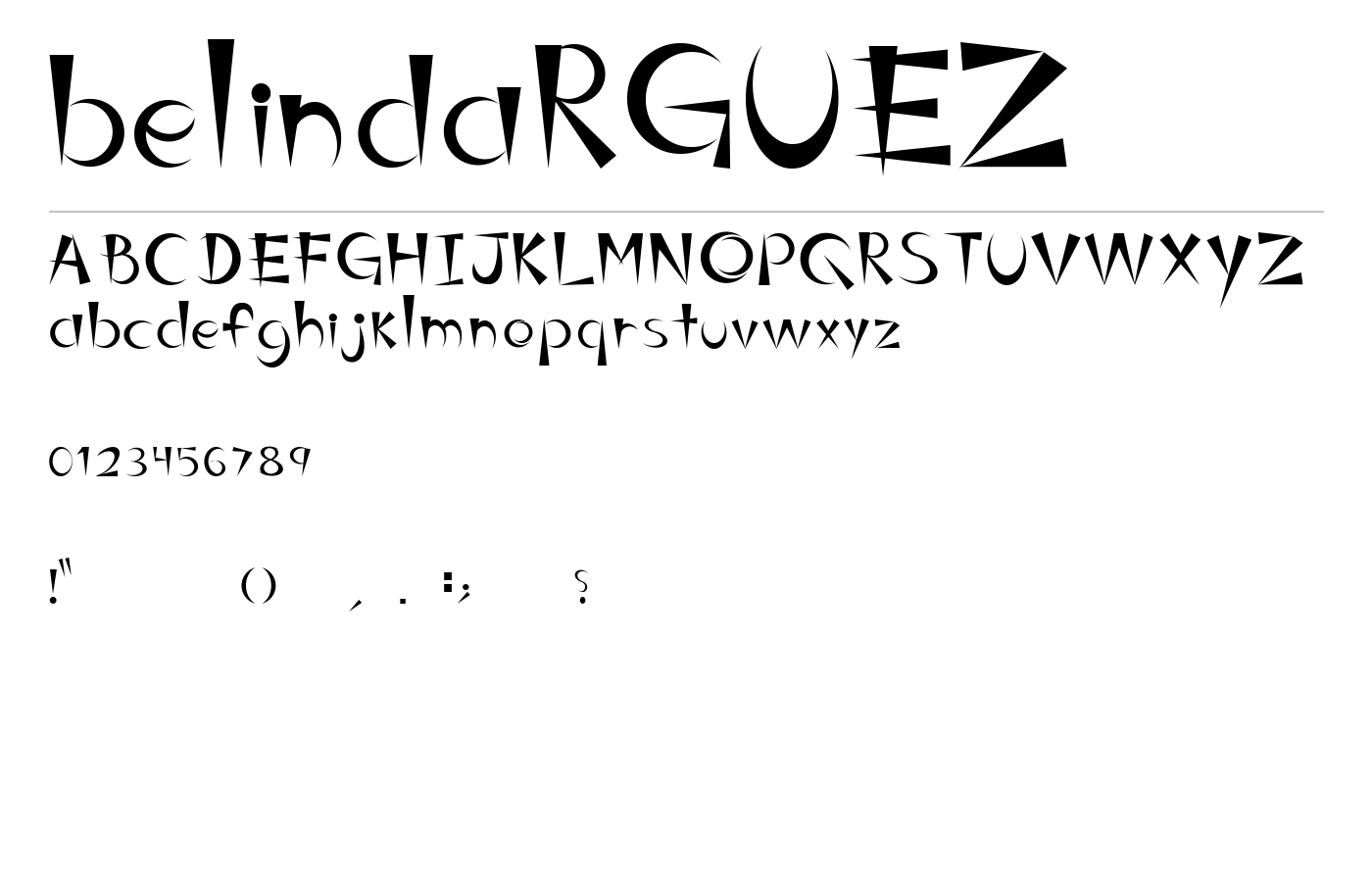
BelindaRGUEZ is a quirky, artistic sans serif font featuring irregular, sharp-edged strokes with playful curves and whimsical shapes. Its distinct contrast and unconventional letterforms give it a creative, expressive personality that works best for eye-catching headlines, branding, and decorative projects where individuality and fun are desired. This font is ideal for designs needing a bold, unconventional style that stands out with charm and flair.
belindaRGUEZ Font
About belindaRGUEZ Font
| Designer | Belinda Rodriguez |